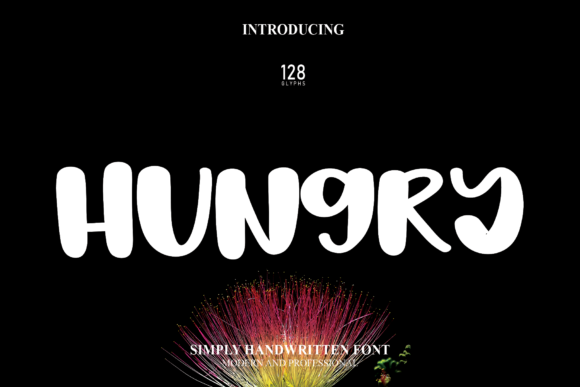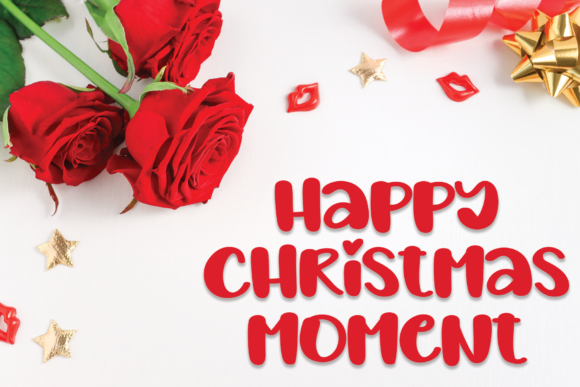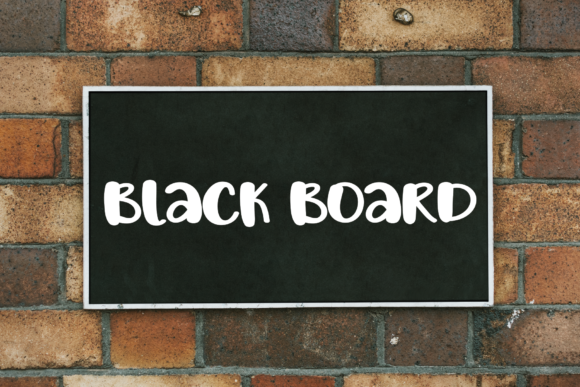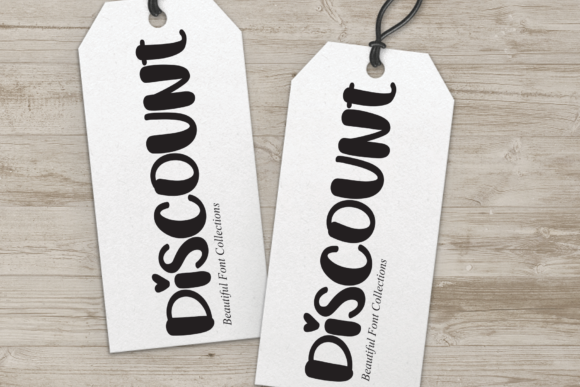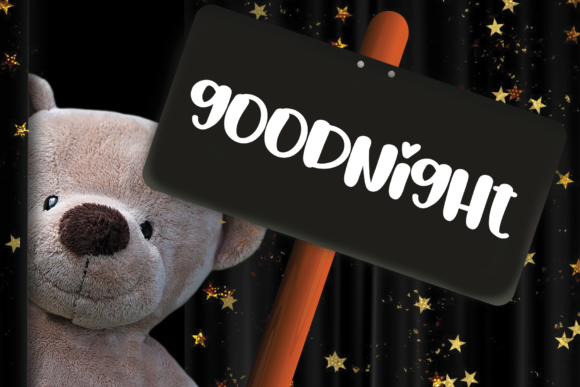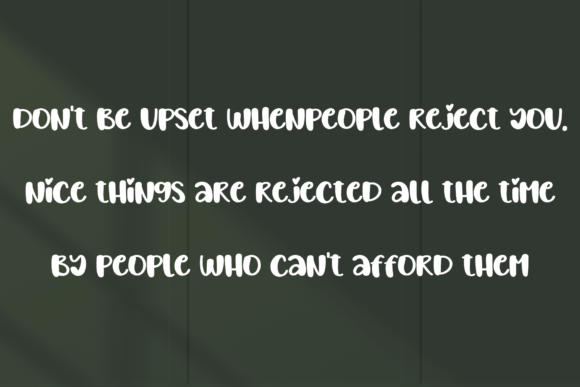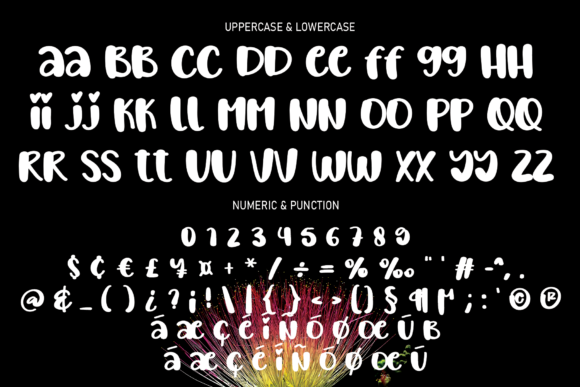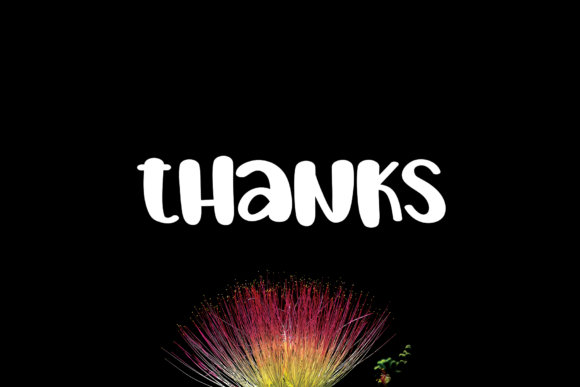
Hungry Font
About Hungry Font
“Hungry” makes a bold entrance as a thick and vibrant font, designed to inject fun and playfulness into your creative projects. With its bold and substantial strokes, this font is tailored to leave a lasting impression and elevate the visual appeal of a diverse range of branding and packaging endeavors.
The boldness of “Hungry” is a key feature that enhances its visual impact. The thick and robust characters ensure readability and visibility, making it an ideal choice for designs that demand attention. Whether applied to product packaging or promotional materials, this font promises to be a standout element.
The playfulness embedded in “Hungry” contributes to its versatility. This font is well-suited for a variety of design contexts where a lighthearted and cheerful aesthetic is desired. The bold and playful nature of the font can instantly uplift the mood of a design, making it suitable for projects targeting diverse audiences.
In branding and packaging projects, “Hungry” becomes a dynamic choice to convey a sense of energy and creativity. The thickness of the font allows for clear and impactful branding, ensuring that the visual identity of a product or business is communicated with vigor.
The adaptability of “Hungry” extends to different age groups and design themes. Its bold and playful characteristics make it suitable for projects targeting a younger demographic or those aiming to evoke a sense of joy and positivity. The font’s design can resonate well with audiences seeking engaging and dynamic visual experiences.
Overall, “Hungry” stands out as a font that seamlessly blends boldness with playfulness. Whether applied to branding, packaging, or various design projects, this font offers a dynamic and vibrant option to enhance the visual appeal and make a memorable impact.